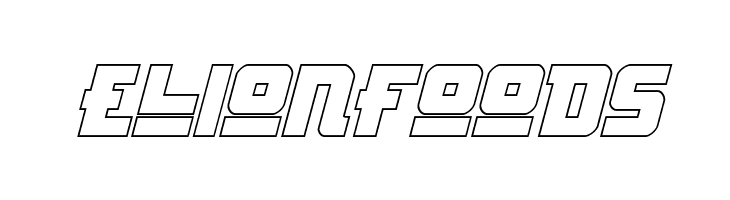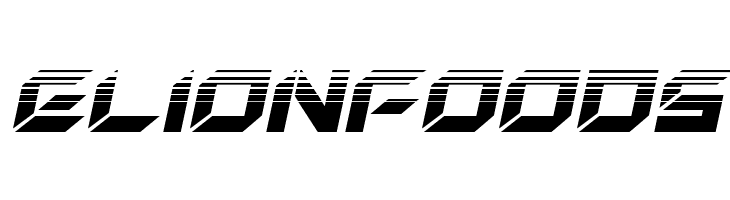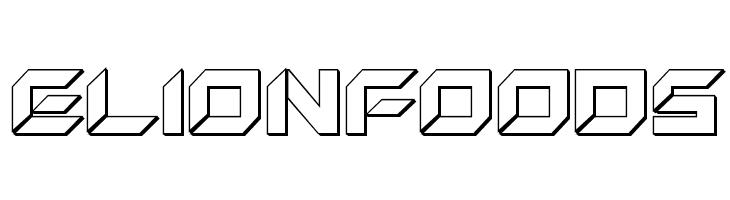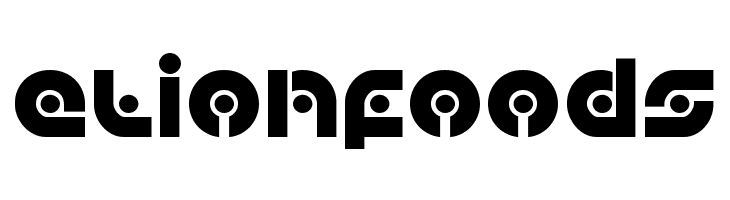
A bold, geometric font with a hollow interior and a modern, digital look.
A modern, italicized, hollow font with geometric and angular design.
A modern, stencil-like font with geometric and industrial characteristics.
A bold, modern font with a glitch effect and high contrast.
A bold, angular font with a futuristic and geometric design.
A modern, geometric outline font with consistent line thickness and angular letterforms.
A decorative font with characters formed by small, evenly spaced dots.
A bold, geometric outline font with a maze-like design.
A geometric, angular font with a futuristic and edgy design.
A bold, futuristic font with a gradient effect and geometric shapes.
A bold, futuristic outline font with an italic slant and geometric shapes.
A bold, italicized font with a futuristic halftone effect and angular design.
A bold, geometric font with a 3D effect and sharp angles.
A bold, geometric font with a futuristic and modern design.
An ornate and decorative script with bold, flowing characters connected by a horizontal line.
A bold, distressed font with star cutouts, ideal for edgy designs.
A bold, geometric outline font with a modern and futuristic style.
A decorative, nautical-themed font with intricate details and vintage flair.
A futuristic, geometric font with a layered, three-dimensional design.
A bold, geometric font with a modern and angular design.
A bold, pixelated font inspired by classic video game graphics.
A decorative font with a mechanical, textured design using circles and lines.
A geometric, hollow font with angular lines and a modern, futuristic style.
A bold, futuristic font with geometric, rounded shapes.
An elegant, cursive font with a graceful, handwritten style.
A modern, hollow italic font with outlined characters and a dynamic style.
A bold, pixelated font with a retro, digital aesthetic.
A set of decorative symbols inspired by traditional Latvian motifs.
A decorative typeface featuring cartoonish characters with unique expressions.
A modern, high-contrast font with bold lines and artistic curves.
A bold, geometric font with a 3D effect and outlined characters, perfect for modern and digital themes.
A futuristic, 3D geometric font with bold, angular lines.
A bold, angular font with a futuristic, robotic aesthetic.
A bold, graffiti-inspired font with angular strokes and dynamic energy.
A bold, geometric font with a modern, digital aesthetic.